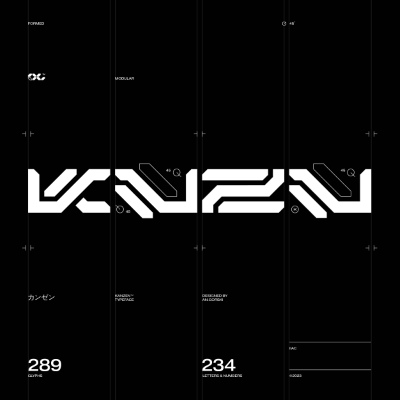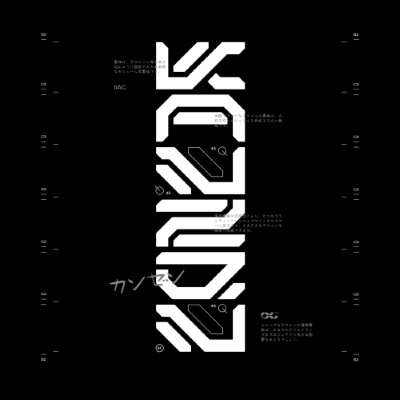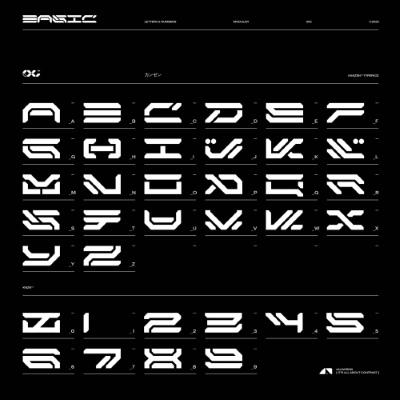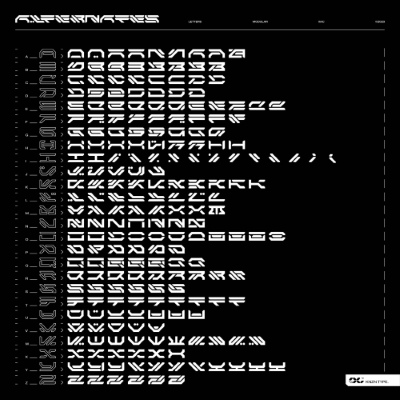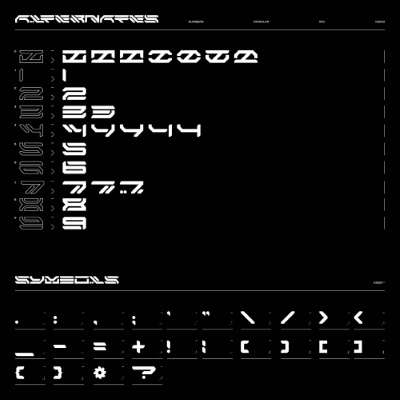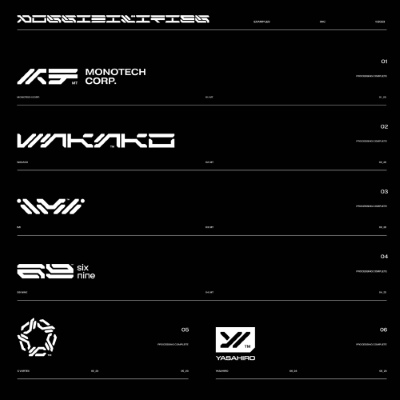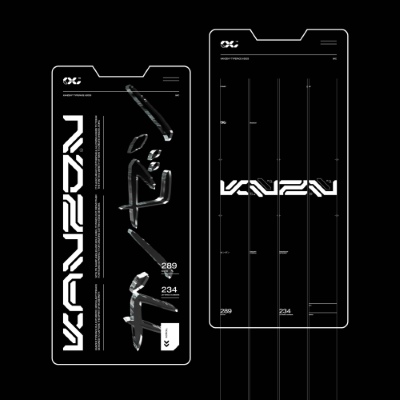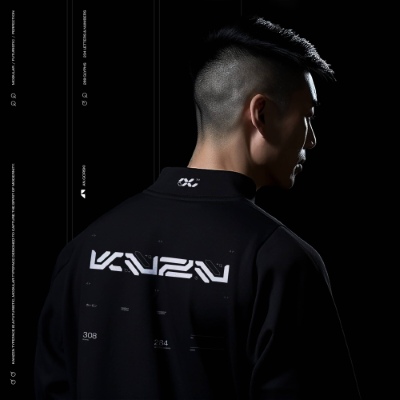
by Studio Innate
289 glyphs | 234 letters & numbers (including alternates)
- Experience the cyberpunk realm with Kanzen font. This impeccably crafted typeface is perfect for logos and headers. With a modular design and alternative characters, Kanzen captures the essence of a futuristic digital age. Introducing Kanzen, an impeccably crafted font that will transport you into the cyberpunk realm of a distant future. This futuristic typeface exudes an aura of technological prowess, replete with a vast array of alternative characters and a modular design. With each letter of Kanzen comprised of multiple parts, it seamlessly facilitates the creation of logos, symbols, and headers with unparalleled ease. A true testament to advanced technology, Kanzen encompasses a staggering 300 characters, each meticulously crafted to embody the essence of a digital age yet to come.